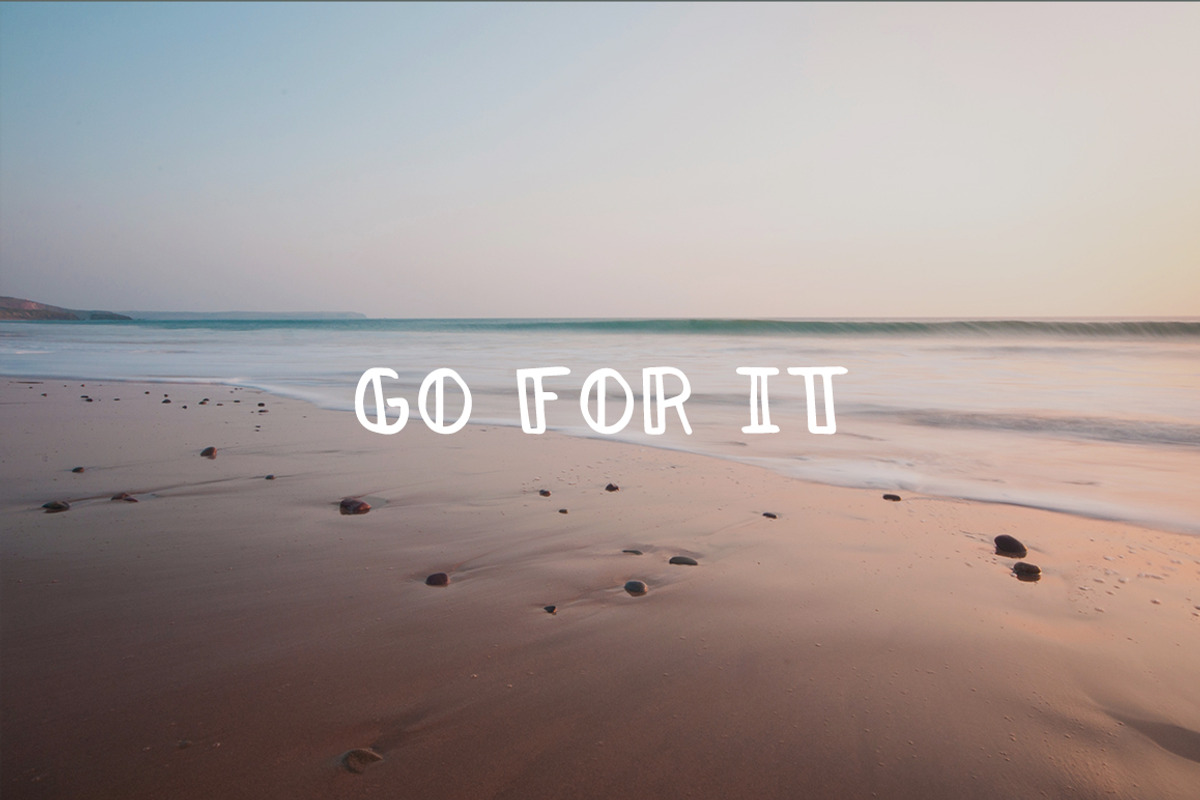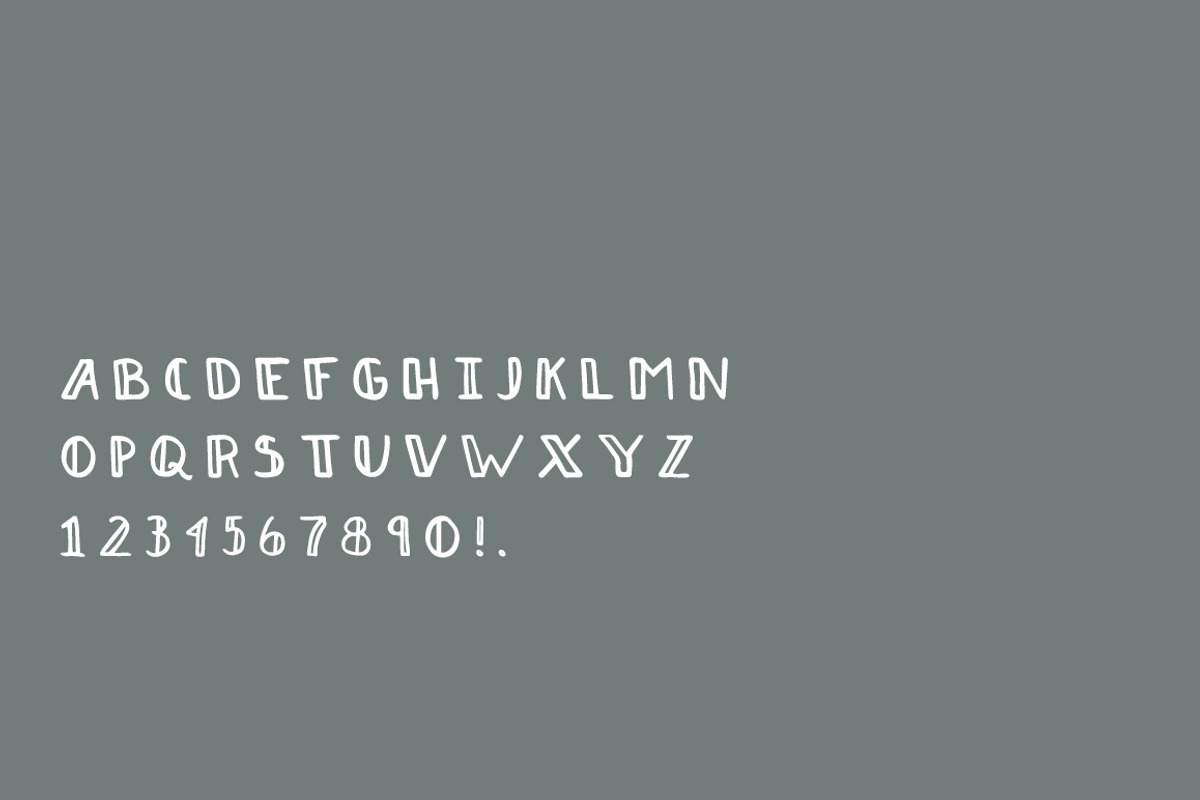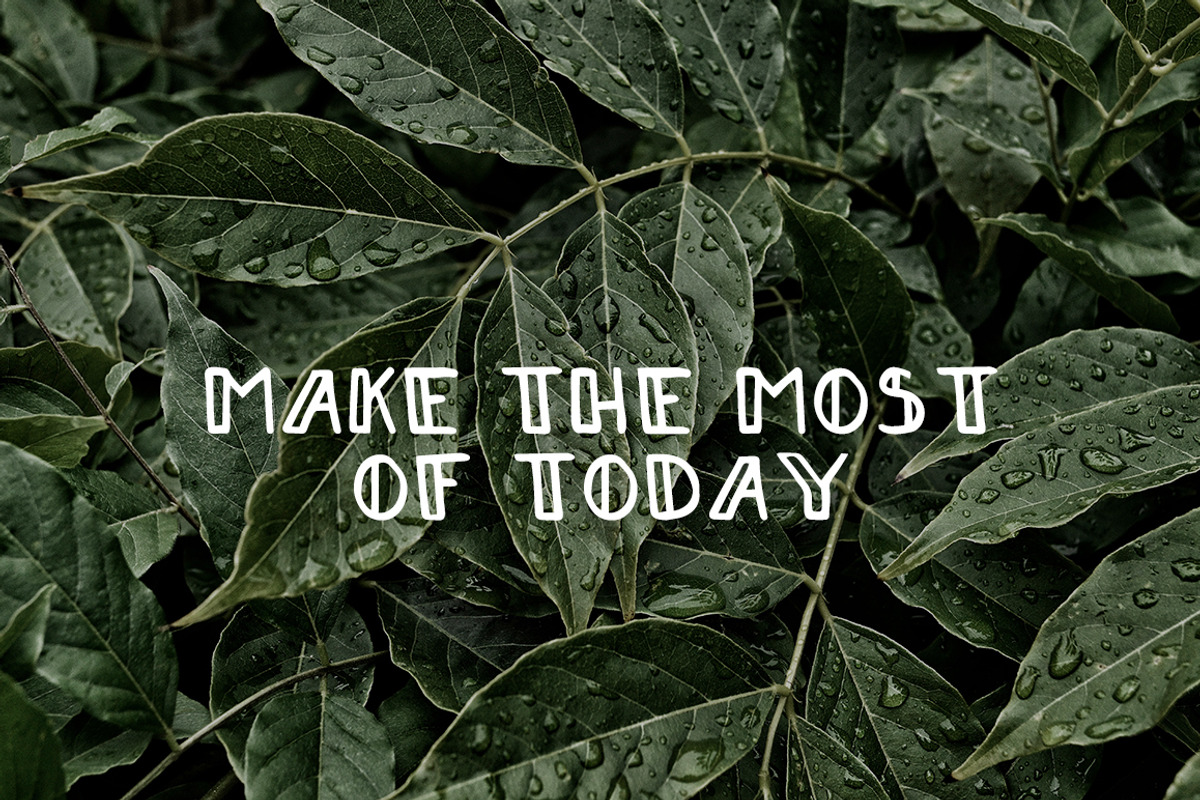
Unprepared - Hand Lettered Font
Unprepared - Hand Lettered Font by The Fresh Exchange is a font selected for branding, posters, packaging, typography.
Why Unprepared - Hand Lettered Font is worth a look
Unprepared - Hand Lettered Font by The Fresh Exchange fits naturally into Branding, posters, packaging, typography.